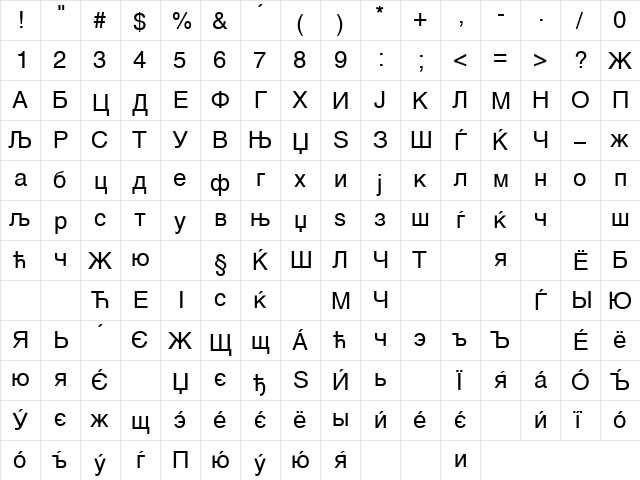
WEST ARIAL Regular Font Preview
WEST ARIAL Regular
Design Context for WEST ARIAL Typeface
WEST ARIAL is a composed and adaptable typeface that performs quietly and consistently across a wide range of design contexts.